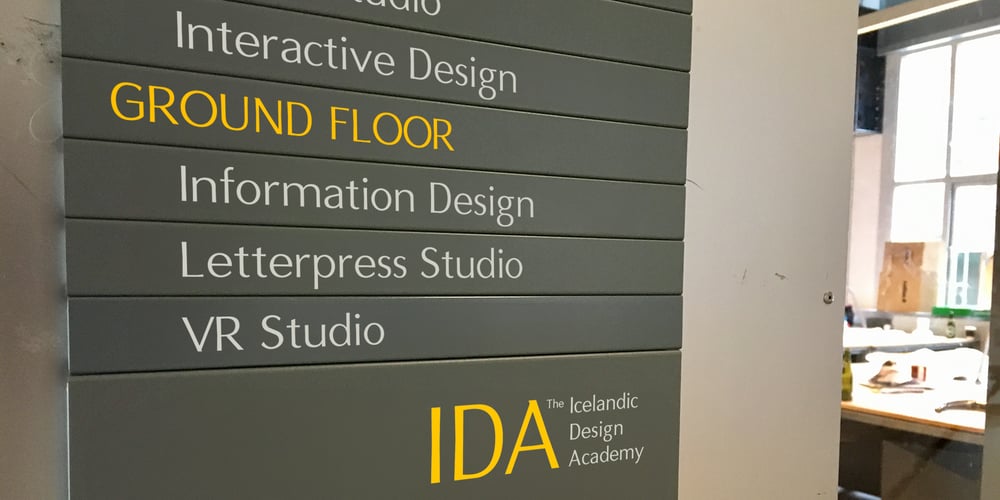
Brightsight
Brightsight font
Brightsight Font Family was designed by Halldór Björn Halldórsson and published by Fontar. Brightsight contains 6 styles and family package options. Brightsight is a linear font with a slight semi-serif character. It is a legible font even in small sizes, applicable in headers as well as longer texts. Each Brightsight font contains more than 300 glyphs, covering most of the Central and East European languages.